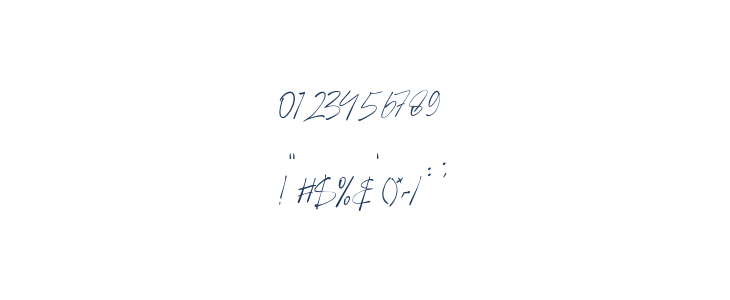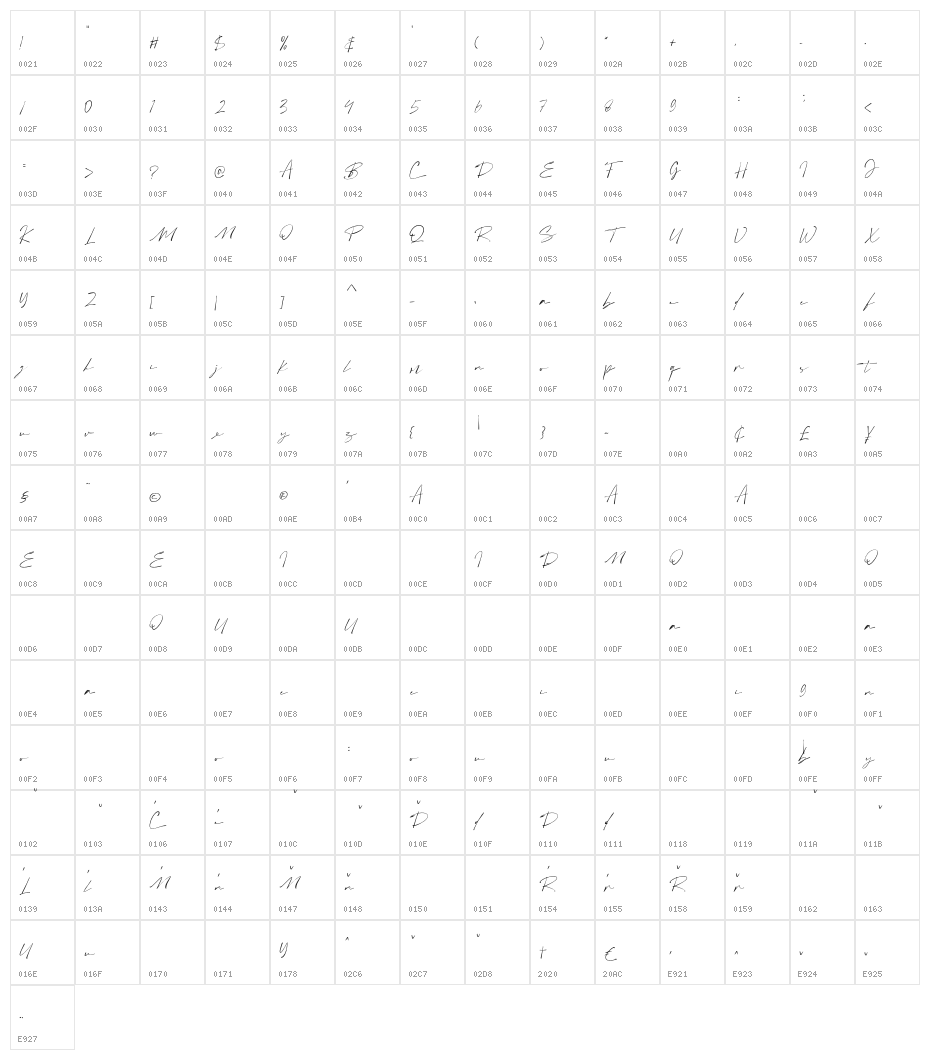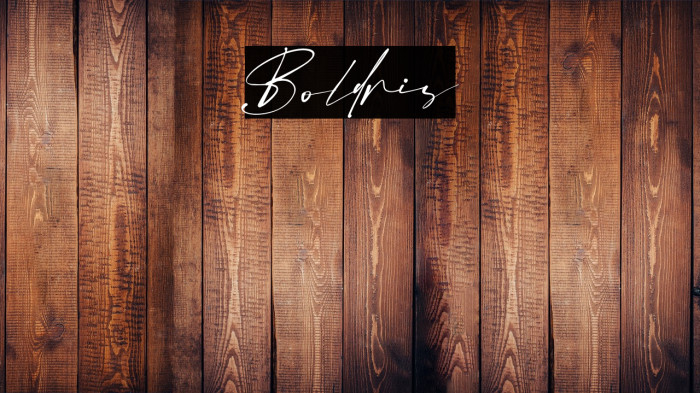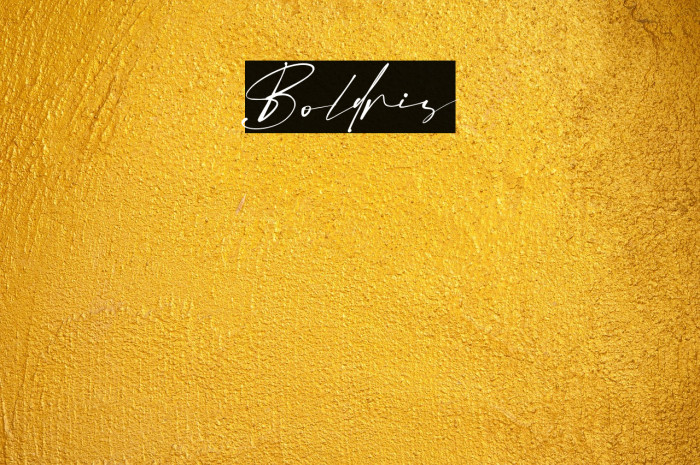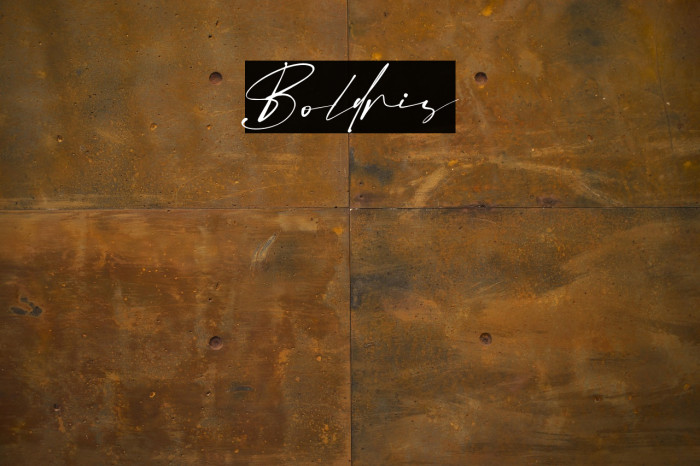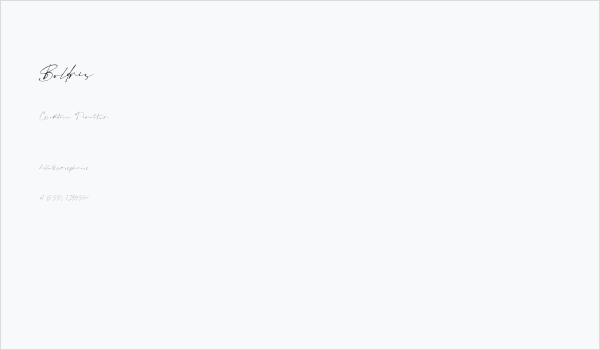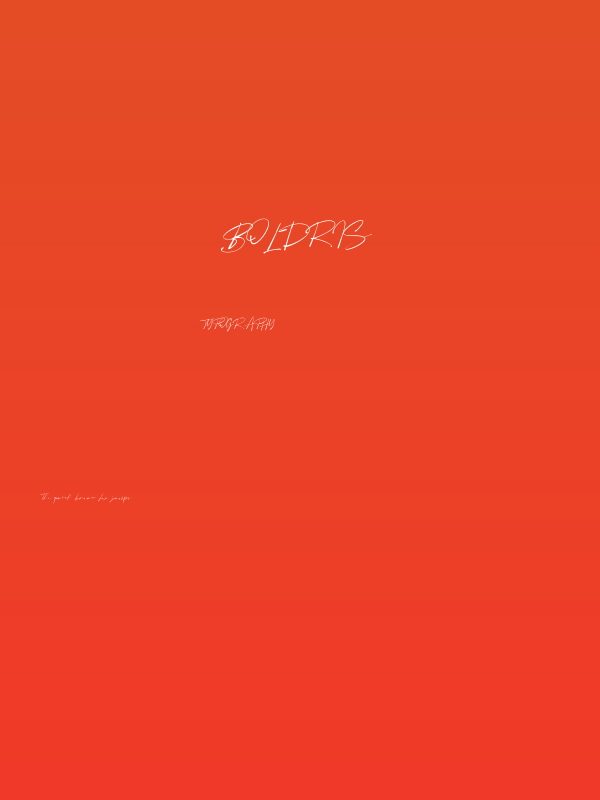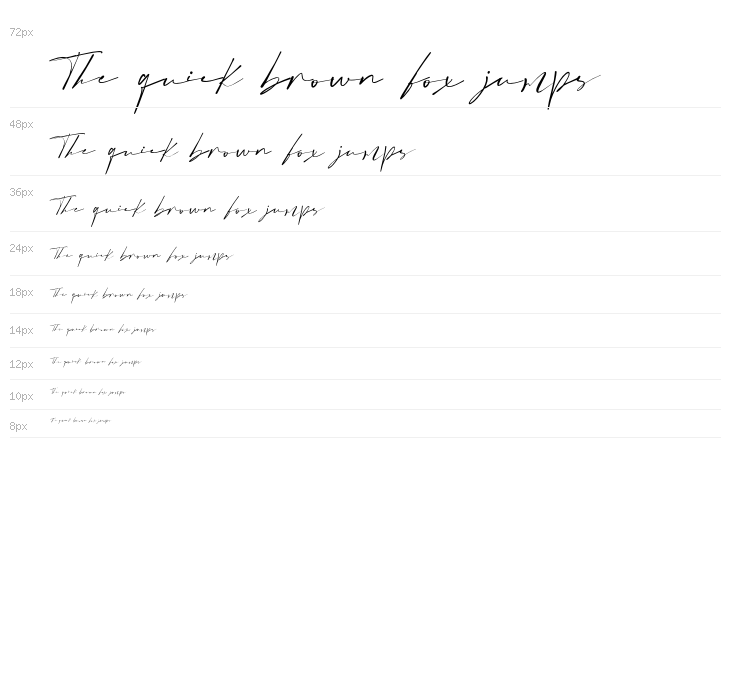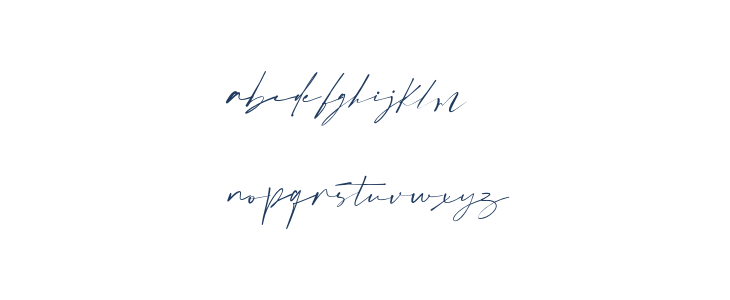
Boldris Font
Boldris Description
This font exudes a modern, handwritten style with a touch of elegance and fluidity. The characters are crafted with a delicate, flowing script that mimics the natural movement of handwriting. Each letter is connected with smooth, sweeping strokes, giving it a cohesive and continuous appearance. The uppercase letters are bold and prominent, while the lowercase letters maintain a consistent flow, enhancing readability. The numbers and special characters are designed with the same fluidity, ensuring a harmonious look across all elements. The overall aesthetic is both sophisticated and approachable, making it suitable for a variety of creative applications.
| Use Case | Logos, Invitations, Personal Branding |
| Proposed Projects | Ideal for wedding invitations, personal branding, greeting cards, and elegant packaging designs. |